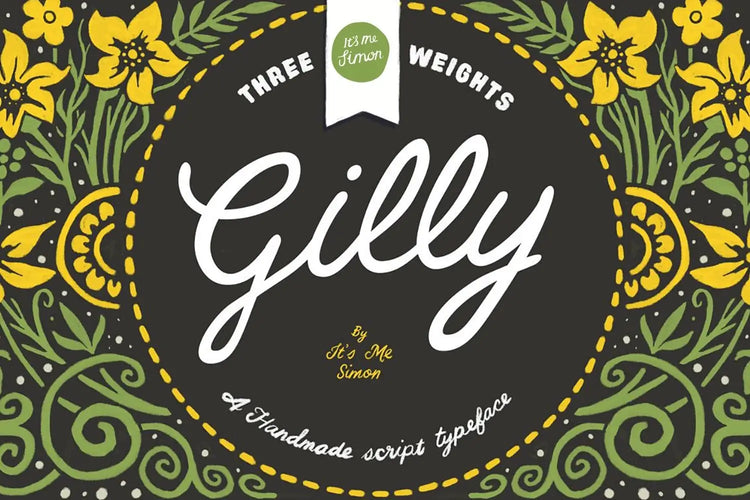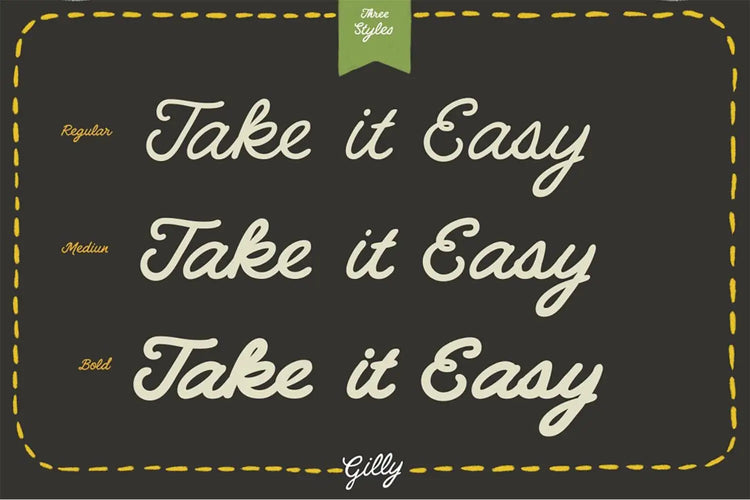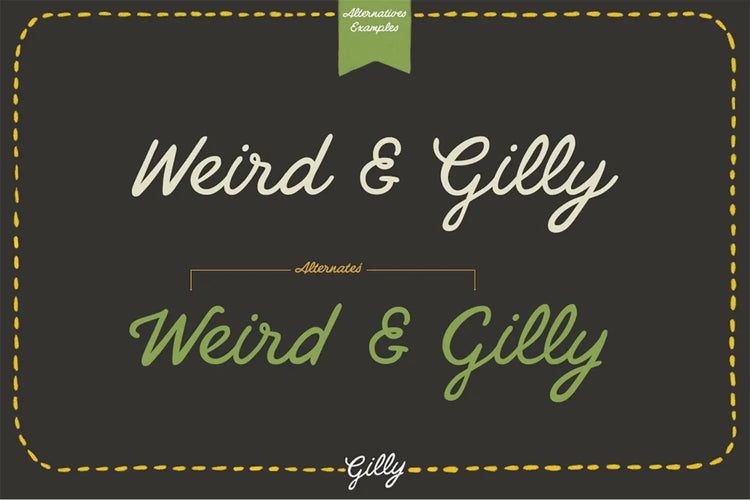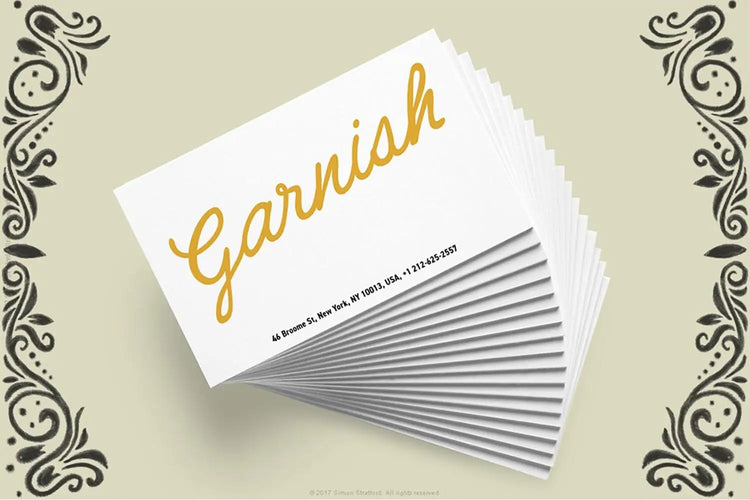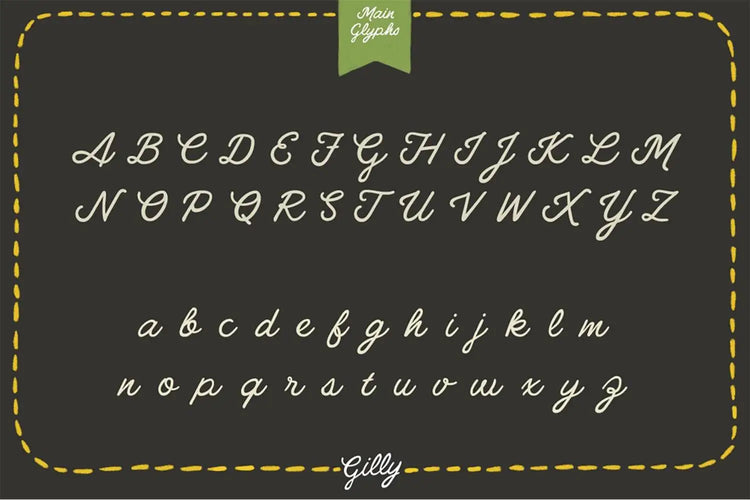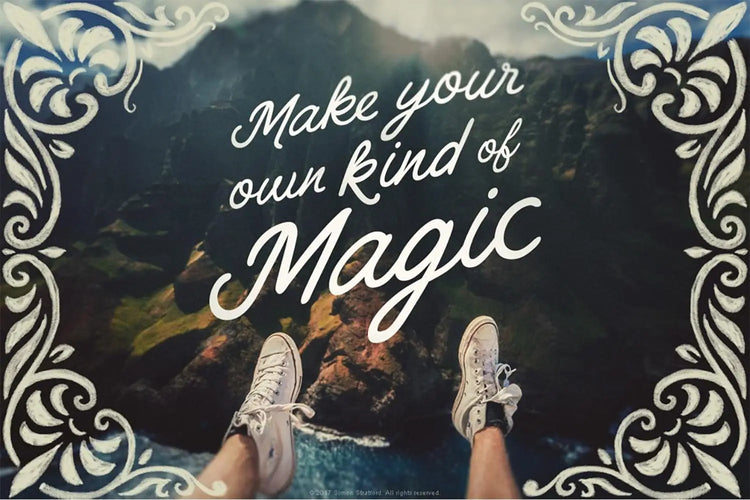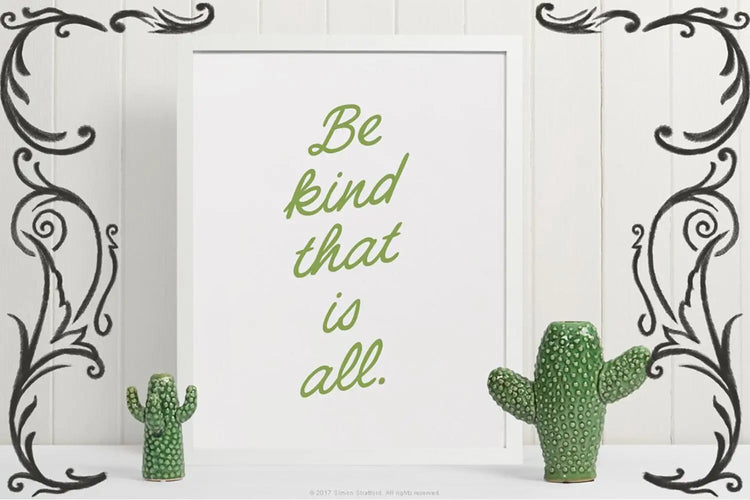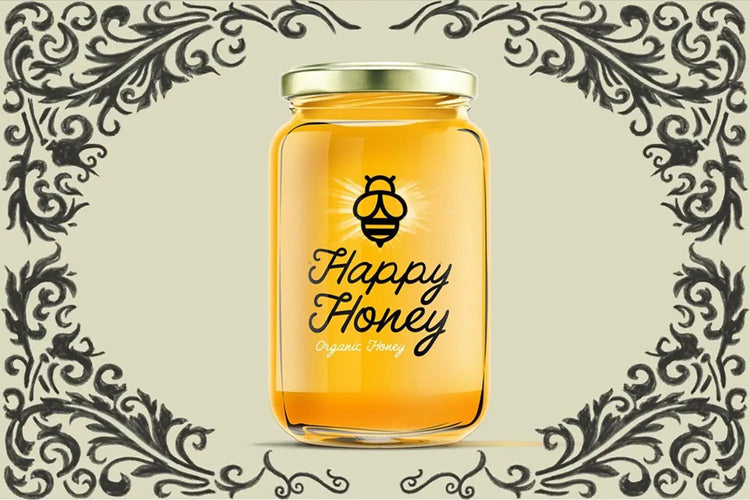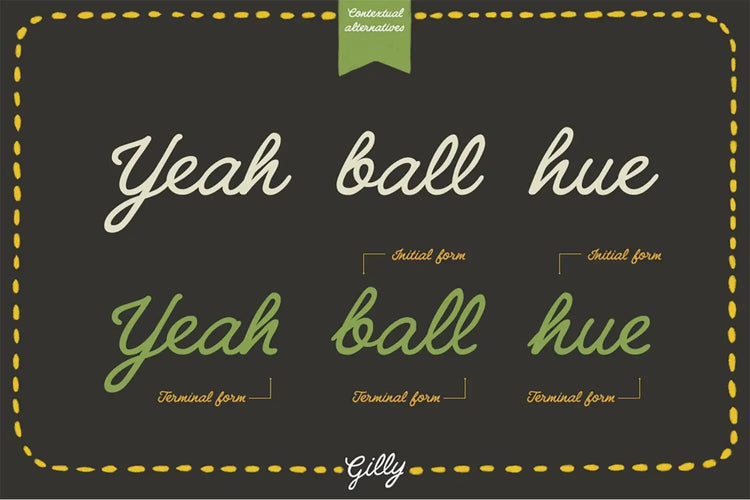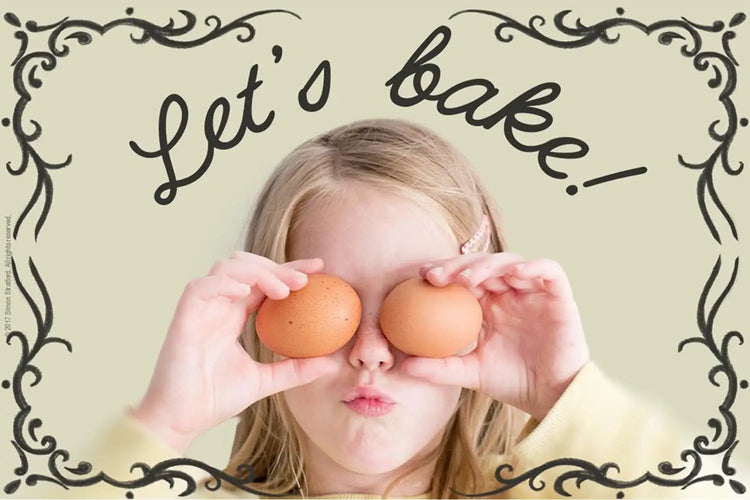
Gilly script — Handmade Retro Script Font
About Gilly script
Gilly Script is a handmade script typeface inspired by hand-painted American signage and posters. It has a fun, casual style with large bold lines that evoke a retro look and feel. Gilly Script comes in three weights: regular, medium, and bold.
Handwritten Script Font
With its handwritten style, Gilly Script is ideal for stationery, wedding invitations, cards, branding, packaging, logos, titles, slogans, or any project where you want a handwritten cursive appearance.
Contextual Alternatives
Gilly Script includes charming alternates, ligatures, and a few initial and terminal forms. By enabling contextual alternatives in your design application, you can quickly change each character, and the letters will transform as you type.